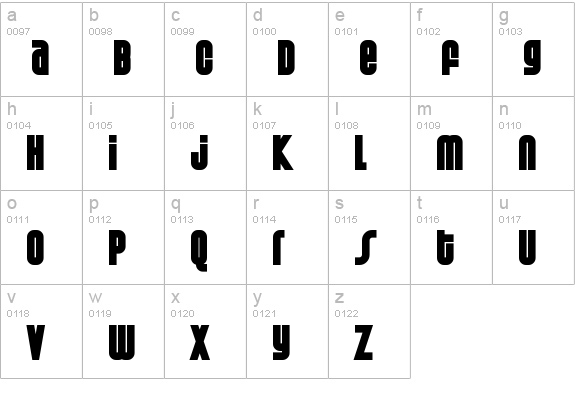
Weltron Special Power Font Details
Weltron Special Power font is a stunning display typeface that exudes a sense of power and strength. With its bold and dynamic letterforms, this font is perfect for making a statement and grabbing attention. The sharp edges and unique curves of each character add a touch of modernity and sophistication to any design. But what sets Weltron Special Power font apart is that it is not only visually striking, but also freely available to download at FontsMarket.com. This means that designers, creatives, and enthusiasts alike can access this incredible font without any cost. Whether you need it for personal or commercial use, Weltron Special Power font is there to elevate your projects to the next level. Imagine the possibilities with this font - from eye-catching logos and branding materials to impactful headlines and posters, Weltron Special Power font will make your designs stand out from the crowd. Its versatility allows it to be used in a variety of contexts, whether it's for a futuristic sci-fi theme or a bold sports-inspired concept. In addition to its aesthetic appeal, Weltron Special Power font is also highly legible, ensuring that your message is delivered with clarity and impact. Its well-defined letterforms make it easy to read, even at smaller sizes. Whether you're designing for print or digital platforms, this font will always deliver a visually striking and professional result. So why wait? Unleash the power of Weltron Special Power font and take your designs to new heights. Download it for free at FontsMarket.com and let your creativity soar. With this font in your toolkit, you'll have the tools to create stunning and memorable designs that leave a lasting impression.